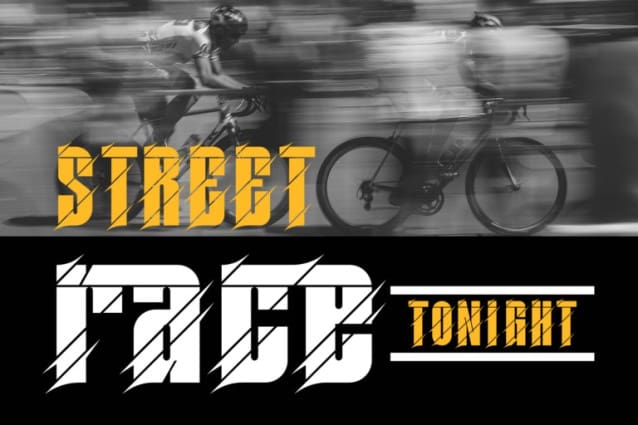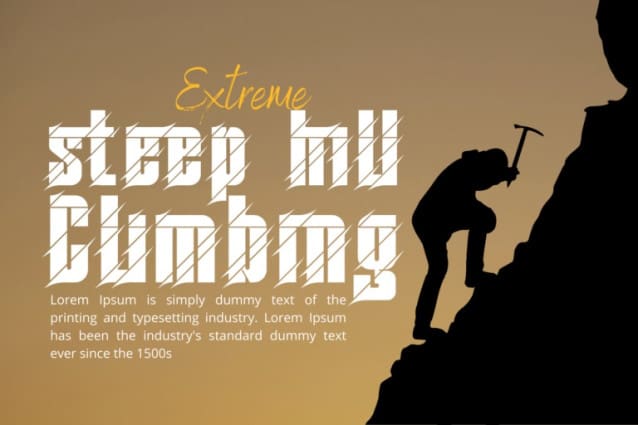
Whether Slashed Font
Whether Slashed Font – Unleash the Power of Motion and Speed – a dynamic, sporty font designed for those who crave action, speed, and innovation. This typeface is meticulously crafted to embody the essence of the automotive world, fitness, and cutting-edge technology. Ideal for fast auto racing sports, titles, logo, poster, headline, magazine, automotive games, monograms or other modern dynamic designs.
Whether Slashed was built with OpenType features and includes 100 ligatures, alternate, numbers, punctuation, and it also supports other languages.